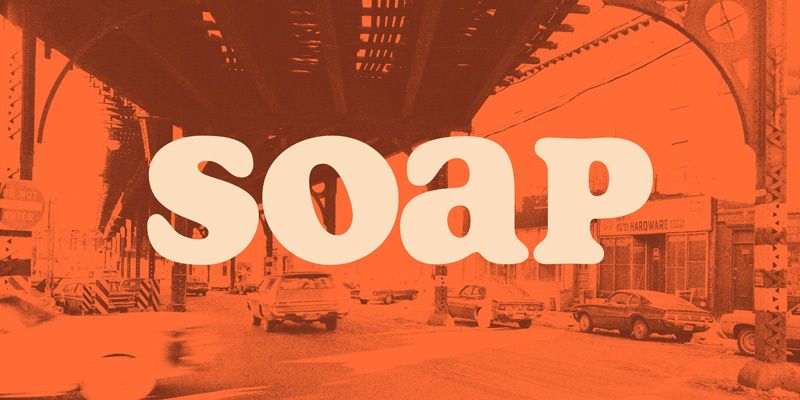
Soap
rounded
Soap is a captivating unicase headliner which looks like Cooper Black but even smoother. It's spaced really tightly, and the bumps have been sanded all the way down.